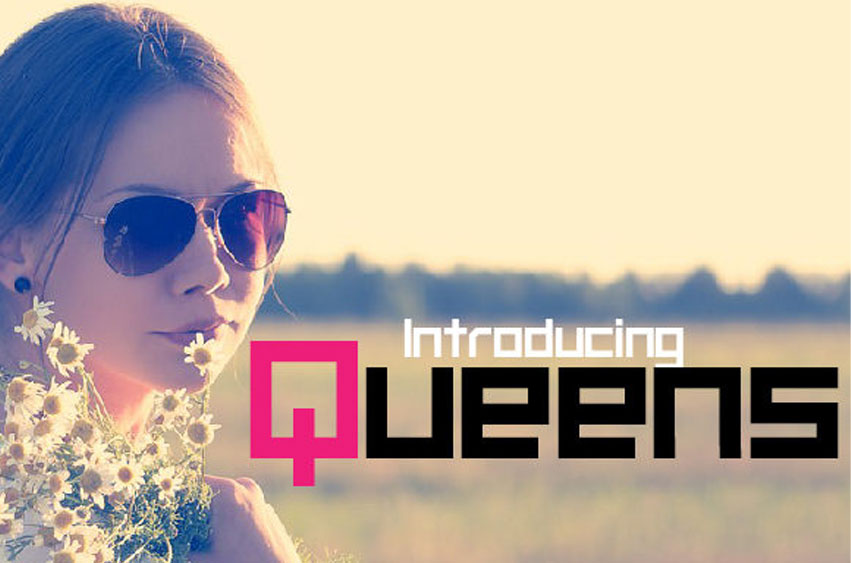
Queens Sans Font
Queens Sans Font is a striking semi-pixel font.
It includes fresh and strong characters and is perfect for making your design stand out.